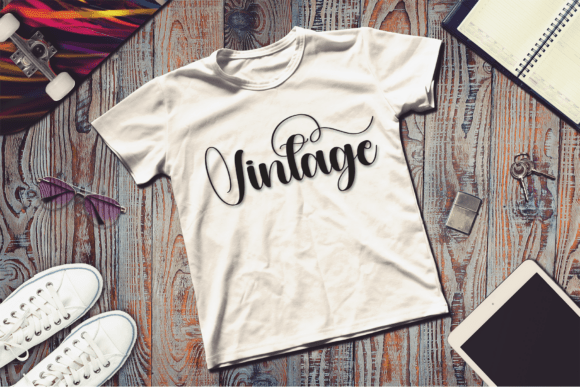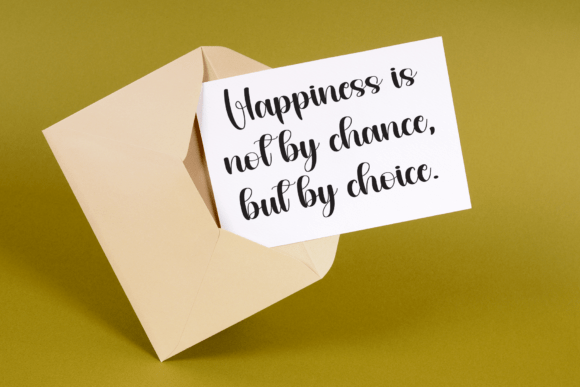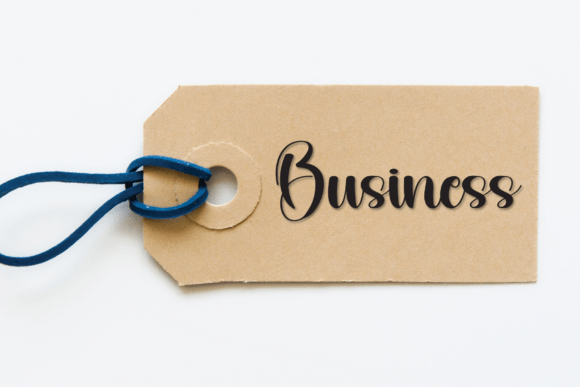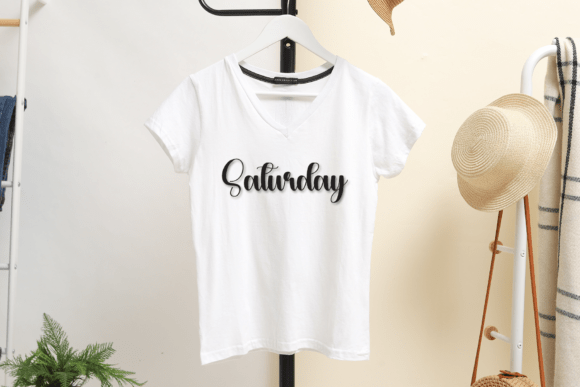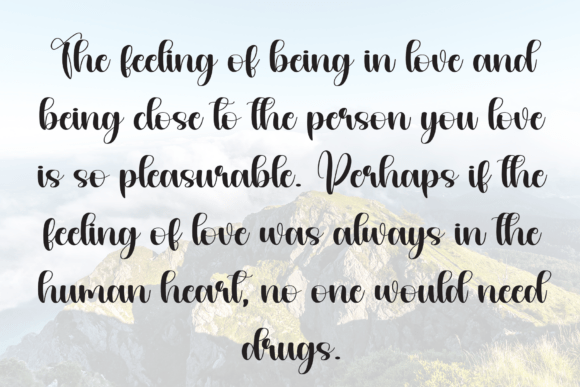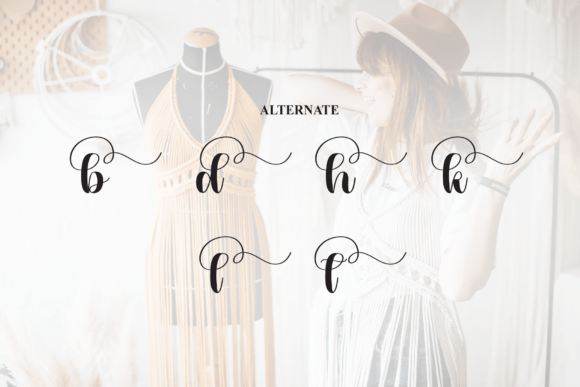
Fashion Font: Elevate Your Designs with Expressive Elegance
In the world of typography, a fashion font can make or break the aesthetic of a design. For those seeking a blend of luxury and trendiness, a fashion handwritten script font is an excellent choice. This style of font exudes expressive elegance with a bold, modern twist, making it perfect for designers and crafters looking to elevate their work.
The Characteristics of Fashion Handwritten Script Font
The fashion handwritten script font is characterized by its fluid letterforms, accentuated by graceful ascenders and elongated swashes. These features give the font a luxurious and trendy visual appeal, making it ideal for high-end designs. Each character boasts a slightly rounded finish, adding warmth and charm without compromising readability.
What Sets This Font Apart
One of the standout features of this fashion font is the inclusion of stylish alternates for certain characters, such as ‘b’, ‘d’, ‘h’, ‘k’, ‘l’, and ‘t’. These alternates are enhanced with flowing, extended flourishes, making them perfect for creating standout initials or dramatic headlines. This level of versatility allows designers to experiment with different looks and find the perfect fit for their project.
The fashion font comes with full PUA (Private Use Area) encoding, which means that all glyphs and alternates are easily accessible across design platforms. This eliminates software restrictions, allowing designers to work seamlessly with the font in their preferred software. Whether you’re using Adobe Illustrator, Photoshop, or Canva, you can access the font’s features without any hassle.
A Perfect Blend of Sophistication and Versatility
The fashion handwritten script font strikes a perfect balance between fashion-forward sophistication and creative versatility. Its unique blend of elegance and modernity makes it suitable for a wide range of design applications, from luxury branding and advertising to packaging and digital media.
Encoded PUA Character: No Additional Software Required
One of the most significant advantages of this font is that it can be accessed completely without additional design software. The encoded PUA character ensures that designers can work with the font’s features directly, without needing to invest in specialized software or plugins.
Applications of Fashion Handwritten Script Font
The fashion handwritten script font is suitable for various design applications, including:
- Luxury branding: Create high-end logos, business cards, and letterheads that exude sophistication and elegance.
- Advertising: Use the font to create eye-catching headlines and ad copy that stands out from the crowd.
- Packaging: Add a touch of luxury to product packaging with custom labels, tags, and inserts.
- Digital media: Use the font to create engaging social media graphics, blog posts, and website headers.
Tips for Working with Fashion Handwritten Script Font
To get the most out of this font, consider the following tips:
- Experiment with alternates: Try out different alternates to find the perfect fit for your design.
- Adjust font size and color: Play with font size and color to create visual hierarchy and emphasis.
- Mix with other fonts: Combine the fashion handwritten script font with other fonts to create a unique and interesting typography.
The fashion handwritten script font is a versatile and sophisticated typeface that can elevate any design. With its fluid letterforms, stylish alternates, and PUA encoding, it’s perfect for designers and crafters looking to add a touch of luxury and trendiness to their work. Whether you’re creating luxury branding, advertising, packaging, or digital media, this font is sure to make a statement.